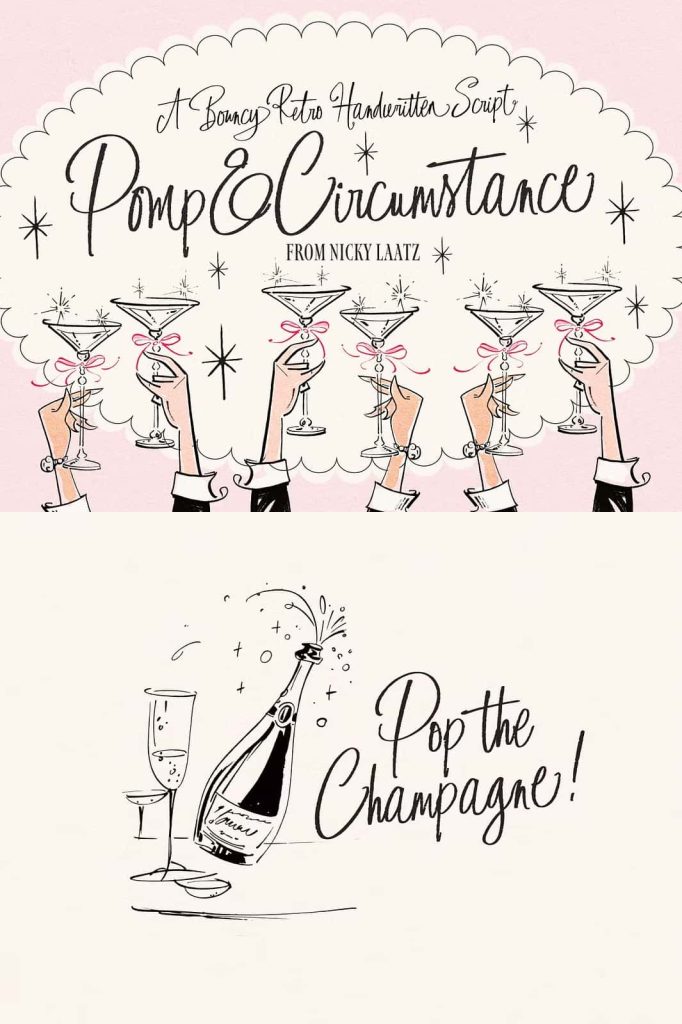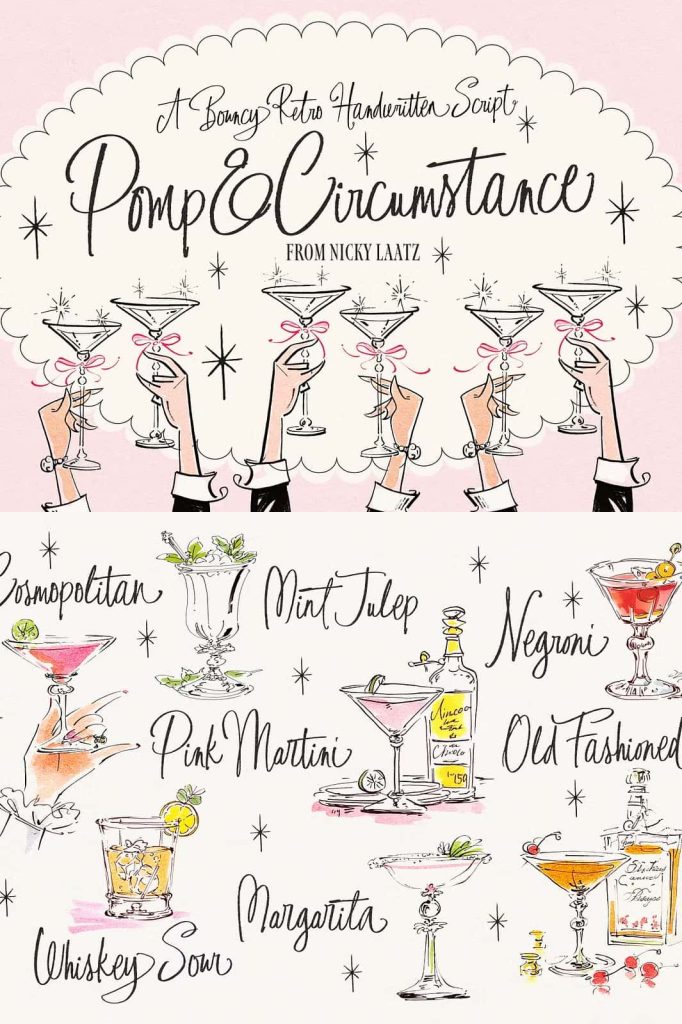
Pomp & Circumstance Font: A Playful Retro 50s Handwritten Script
Pomp & Circumstance Font captures the joyful spirit of retro 1950s design with a lively, textured handwritten script style. This typeface brings energy, charm, and personality into every project, making it an excellent choice for designers who want to create lighthearted and expressive visuals. With its bouncy rhythm and handcrafted texture, this font transforms simple text into a playful design element that instantly stands out.
Inspired by vintage lettering and mid-century aesthetics, Pomp & Circumstance delivers a nostalgic feel while remaining versatile enough for modern creative work. It allows you to create designs that feel warm, approachable, and full of character without sacrificing clarity or usability.
A Bouncy Script with Retro Personality
Pomp & Circumstance Font features a dynamic handwritten style that mimics the natural flow of pen and brush lettering. Its bouncy baseline and varied letter heights create movement and rhythm, giving your typography a sense of life and spontaneity. This playful structure ensures that your designs feel engaging and visually interesting.
The retro 50s influence is evident in every curve and stroke. The font reflects the optimism and creativity of the era, making it perfect for projects that aim to evoke nostalgia while maintaining a fresh and modern presentation.
Textured Details for Added Depth
One of the defining features of Pomp & Circumstance is its textured finish. The subtle imperfections and handcrafted details add depth and authenticity, making your text feel more organic and less mechanical. This texture enhances the visual appeal of your designs and helps create a more immersive experience.
Use larger font sizes to highlight these details and bring out the full character of the typeface. The texture adds richness without overwhelming the overall composition.
Perfect for Fun and Creative Projects
Pomp & Circumstance Font adapts effortlessly to a wide range of creative applications. Its playful and lighthearted style makes it especially suitable for projects that require warmth and personality. You can use it confidently in:
- Greeting cards and invitations
- Wedding stationery with a quirky or casual theme
- Branding for creative and lifestyle businesses
- Retro-inspired posters and graphics
- Social media content and promotional materials
The font’s expressive nature helps your designs connect with audiences by creating a sense of joy and familiarity.
Create Memorable and Engaging Designs
Pomp & Circumstance allows you to build designs that feel lively and memorable. Its unique combination of bounce, texture, and retro style ensures that your typography becomes a focal point. You can use it to highlight key messages, create eye-catching headlines, or add personality to supporting text.
Pair it with simple backgrounds or complementary fonts to maintain balance within your layout. The script’s strong character works best when given enough space to shine.
Ideal for Quirky and Playful Branding
If you are working on branding projects that require a fun and approachable tone, Pomp & Circumstance delivers exactly that. Its handwritten style communicates authenticity and creativity, making it ideal for brands that want to stand out with a friendly and unique identity.
Use it to design logos, packaging, or marketing materials that leave a lasting impression. The font’s retro charm adds a distinctive voice that sets your work apart.
Blend Nostalgia with Modern Design
Pomp & Circumstance Font bridges the gap between vintage inspiration and modern design needs. While it draws heavily from 1950s aesthetics, it remains flexible enough to fit into contemporary layouts. This versatility allows you to experiment with different styles and create designs that feel both nostalgic and current.
You can incorporate it into retro-themed projects or use it as a contrasting element in modern compositions. Its adaptability makes it a valuable addition to any designer’s toolkit.
Why Choose Pomp & Circumstance Font
Pomp & Circumstance stands out because it combines playful energy with professional quality. Its textured script style adds depth and personality, while its well-crafted structure ensures readability and consistency. This balance allows you to create designs that are both fun and functional.
The font simplifies the process of creating expressive typography. It gives you the tools to produce engaging visuals without requiring complex adjustments or additional elements.
Bring Joy and Character to Your Typography
If you want to create designs that feel cheerful, expressive, and full of life, Pomp & Circumstance Font offers the perfect solution. Use it to craft invitations, branding materials, and retro-inspired graphics that capture attention and communicate personality.
Start designing with confidence and let Pomp & Circumstance bring a playful, nostalgic charm to every project you create.